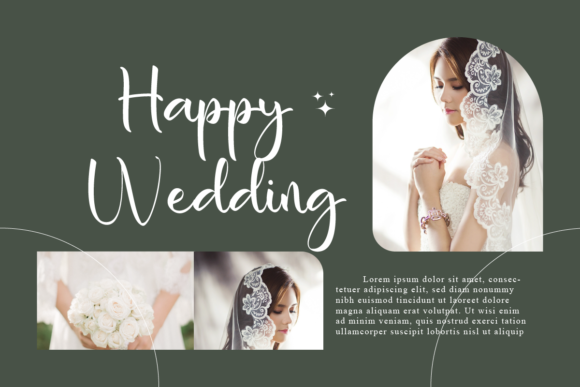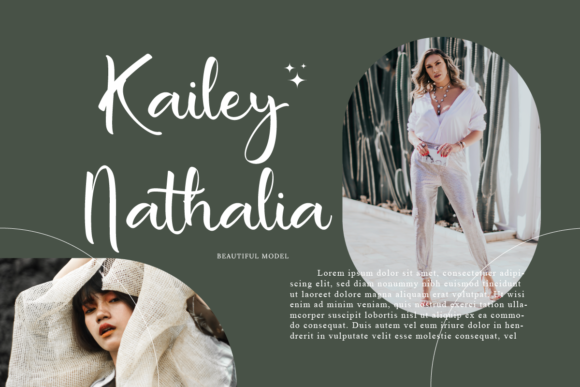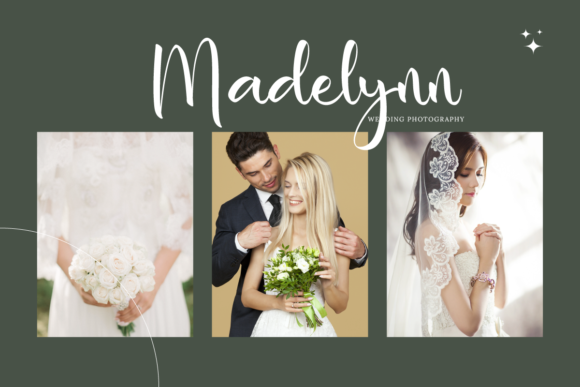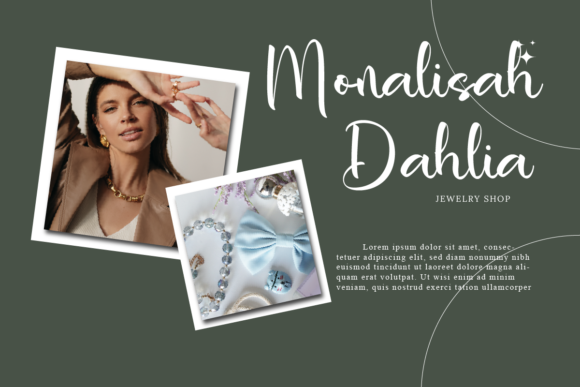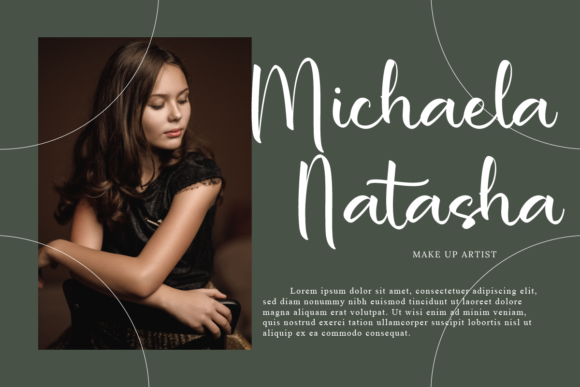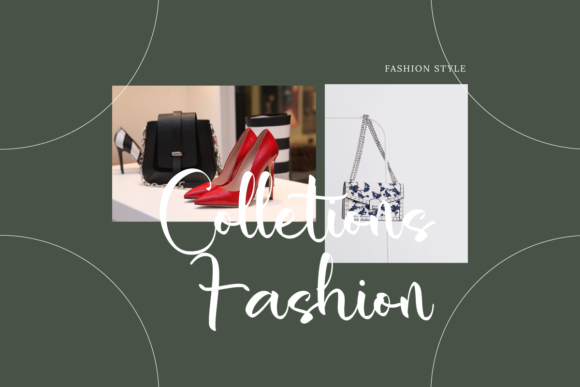
Introduction to Melissa Adalyn Font
Melissa Adalyn is a paint brushed handwritten font, masterfully designed to become a true favorite.
Key Features of Melissa Adalyn Font
Why Choose Melissa Adalyn Font?
Melissa Adalyn Font offers exceptional quality and versatility, making it a valuable addition to your design toolkit. Whether you’re creating for personal projects or commercial use, Melissa Adalyn Font delivers professional results.